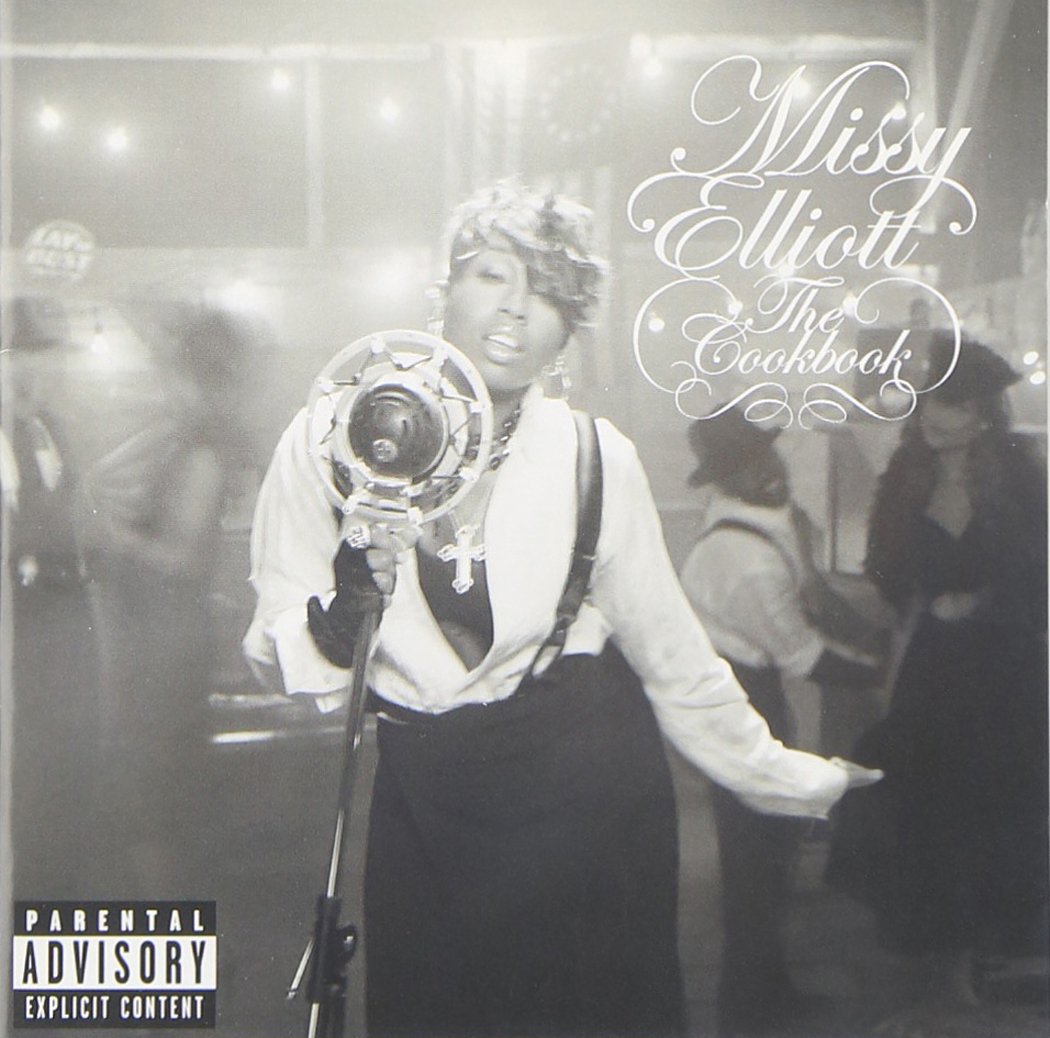
The Cookbook Font
Fonts in UseThe Cookbook is the sixth studio album by American rapper Missy Elliott, released in 2005. It features collaborations with various artists and showcases Missy Elliott's signature fusion of hip-hop, R&B, and electronic music.
ITC Edwardian Script, the elegant font utilized on the cover art, was created by American type designer Edward Benguiat for ITC in 1994. It is a formal script typeface inspired by the appearance of steel-nib calligraphic letters.